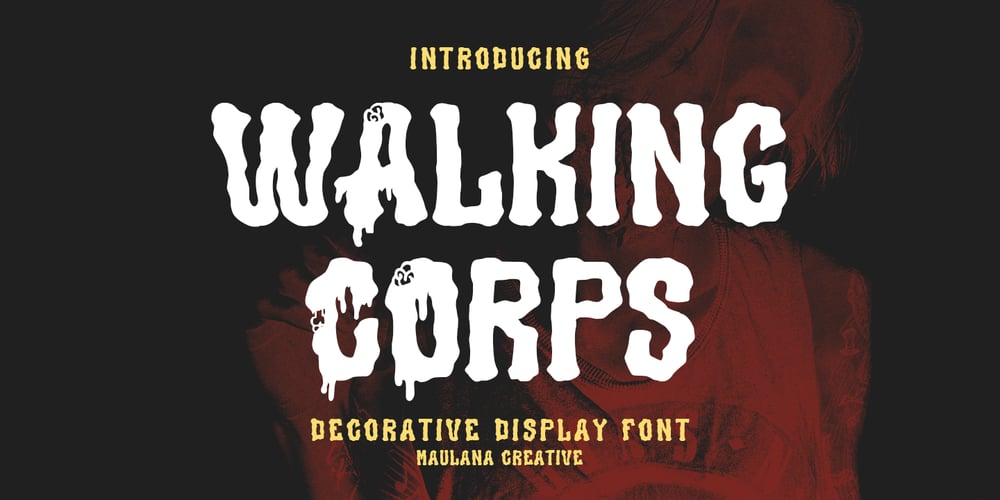
Walking Corps Font Family was designed by Gilang Maulana and published by Maulana Creative. Walking Corps contains 1 styles and family package options. Walking Corps decorative display font, fun character with a bit of ligatures and alternates. To give you an extra creative work. Walking Corps font support multilingual more than 100+ language. This font is good for logo design, Social media, Movie Titles, Books Titles, a short text even a long text letter and good for your secondary text font with script or serif. Make a stunning work with Walking Corps font.Cheers,Maulana Creative